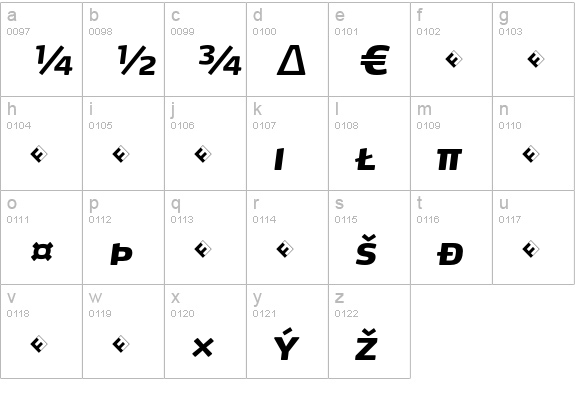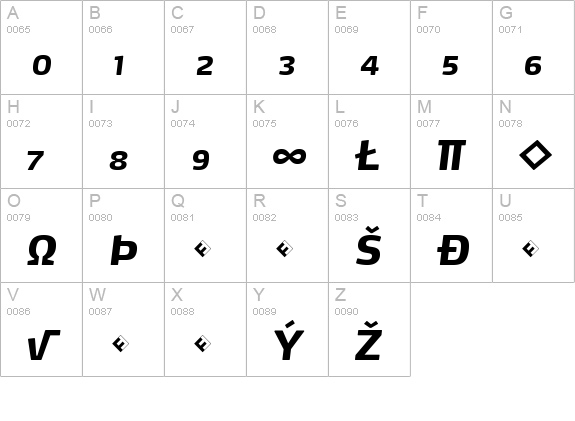
Max-ExtraBoldItalicSCExpert Font Details
Max-ExtraBoldItalicSCExpert is a striking and powerful font that exudes confidence and sophistication. Its bold and italicized design adds a touch of flair and elegance to any text it graces. With its expertly crafted extra bold style, this font demands attention and makes a bold statement. What sets Max-ExtraBoldItalicSCExpert apart is its ability to convey a sense of strength and authority while still maintaining a touch of refinement. Whether used for headlines, titles, or branding materials, this font is sure to leave a lasting impression. The best part? Max-ExtraBoldItalicSCExpert is available for free download at FontsMarket.com. Take advantage of this opportunity to enhance your design projects with this unique and eye-catching font. Don't miss out on the chance to add Max-ExtraBoldItalicSCExpert to your font collection today!